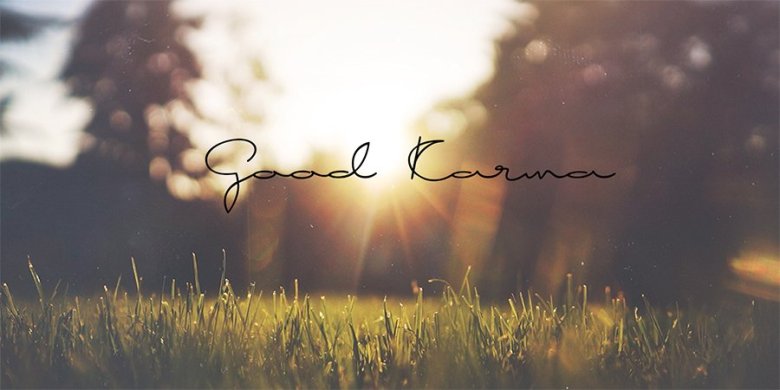
GoodKarma is a cursive handwriting free font with style. With simple monoline strokes and natural bouncy characters, make it great to use on anything; from wedding invitation to greeting card design.